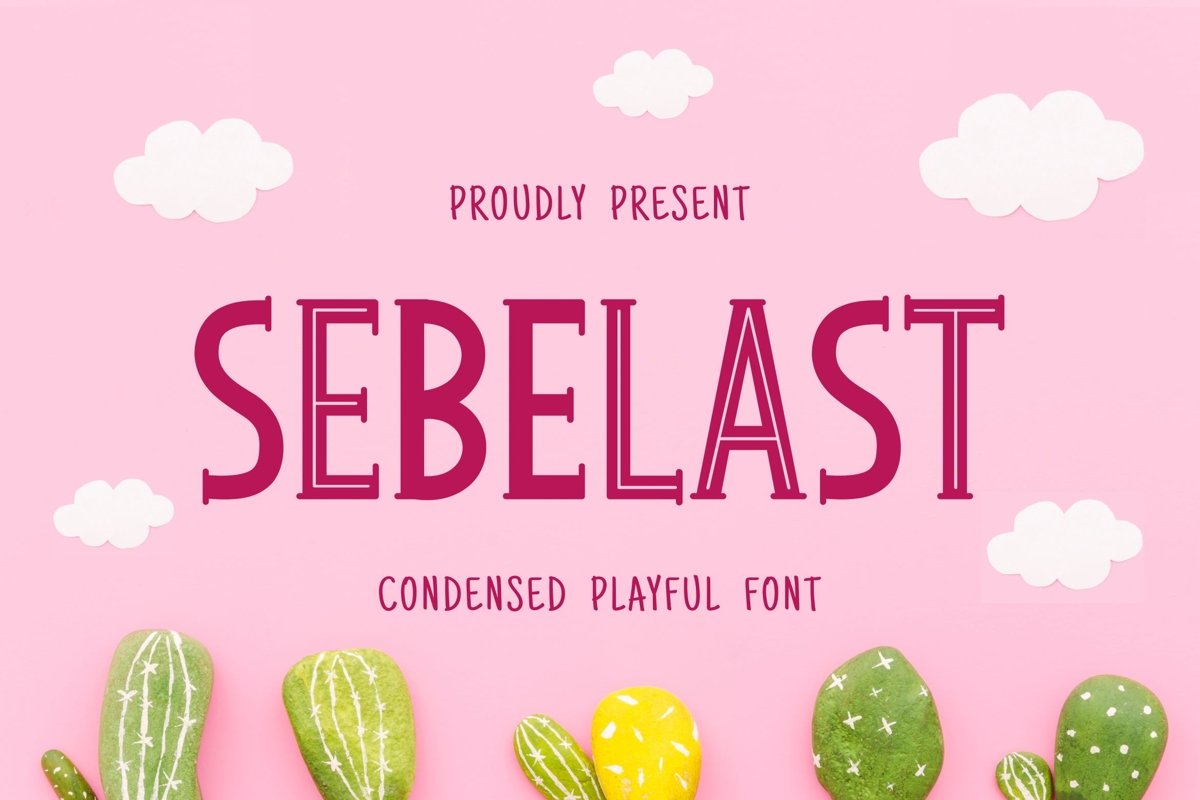
Sebelast Font for some designs such as the logotype, brand, packaging, quotes, music poster, t-shirt, cover book and more custom design. The features uppercase, lowercase, numeral, punctuation & symbol, multilingual support.
SEBELAST